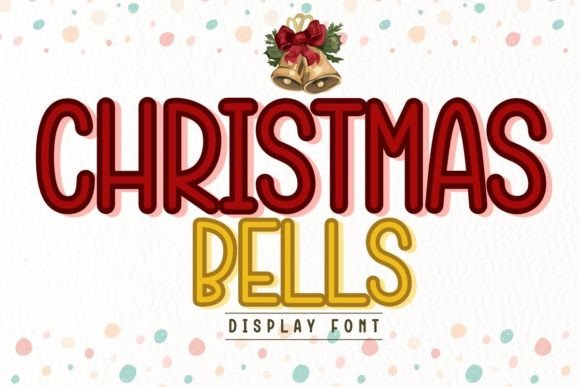
In a world where fonts hold the power to enchant and captivate, there exists a font that dances with the spirit of Christmas, spreading its joyous tune like sweet carols in the winter air. Allow us to introduce you to the elegant and charismatic "Christmas Bells" font, a creation by the talented charmingbear59.design.
Picture this: a font that's not just a collection of letters, but a gateway to a world of festive magic. "Christmas Bells" is a delightful harmony of Display and Script fonts, each character a stroke of artistry that evokes the warmth of a crackling fireside and the joy of presents wrapped in ribbons.
With its handwritten charm and playful innocence, "Christmas Bells" transforms your designs into enchanting masterpieces. Whether you're crafting heartwarming greeting cards, eye-catching banners, or creating a winter wonderland on your website, this font weaves a tapestry of holiday spirit that will make hearts dance like snowflakes in the wind.
Step into the realm of festive creation, where "Christmas Bells" becomes your trusted companion, spreading cheer and delight with every character you type. It's a font that doesn't just sit on the page; it pirouettes across it, bringing smiles to faces and kindling the flames of holiday excitement.
So, dear design pals, embrace the magic of "Christmas Bells" and let your creativity take flight. Let this font be your beacon of festive inspiration, guiding you towards designs that radiate warmth, charm, and the spirit of Christmas. Let your designs jingle with the joy of the season, and let "Christmas Bells" be the merry conductor of your creative symphony.